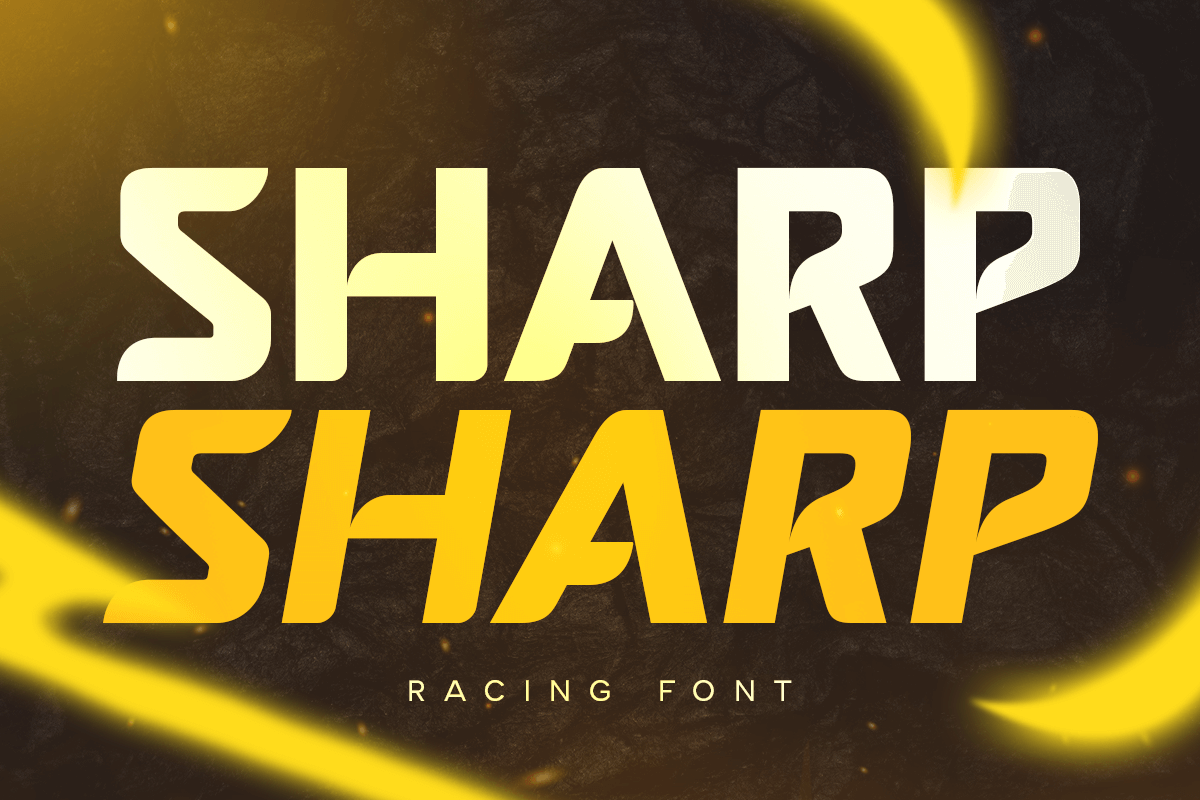
Sharp
-Racing Font
Sharp is a dynamic racing sport font designed to inject energy and power into your bold design projects. Inspired by the speed and excitement of racing, Sharp combines sleek lines with a strong, athletic aesthetic. This font is perfect for creating striking logos, sports branding, and high-energy designs that stand out.
The Story Behind Sharp:
Sharp was created with the thrill of the racetrack in mind. It embodies the spirit of competition and the drive for excellence, making it an ideal choice for sports-related projects and dynamic branding. Whether you're designing for a racing team, creating athletic apparel, or crafting eye-catching logos, Sharp delivers the impact and style you need.
Sharp Font Features:
• Dynamic Design: Perfect for racing, sports branding, and high-energy projects.
• Versatile Usage: Ideal for logos, branding, headlines, and dynamic designs.
• High Legibility: Ensures your message is communicated effectively with clear and bold lettering.
• Racing Appeal: Combines sleek lines with a strong, athletic aesthetic to create a unique and memorable look.
Elevate your design projects with Sharp and bring a touch of racing energy to your work.